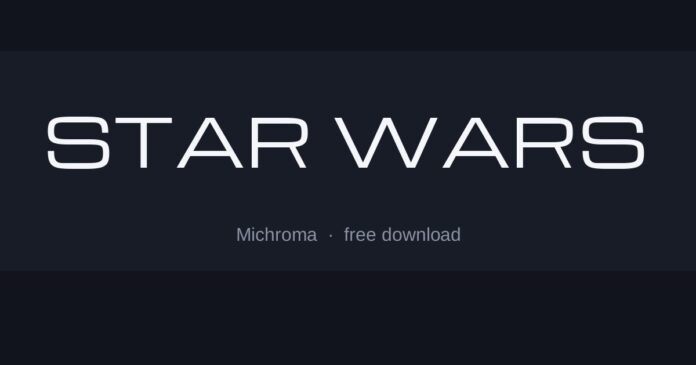
What font is the Star Wars logo?
Custom lettering, drawn by Suzy Rice in 1977 and refined for the film’s titles. It is not a typeface anyone can license — the logo is a single piece of artwork, with the S and the R shaped to lock together.
What can be matched is the underlying idea: a heavy geometric sans, very wide, with flat horizontal terminals and almost no contrast between thick and thin.
- Michroma is the closest in proportion — wide, geometric and even-weighted, with the same squared-off feel across the whole alphabet.
- Mesmerize Ex Bd is the extended bold of a large Eurostile-style family, useful when you want the width without the futurism.
- Goldsaber is heavier and more theatrical, closer to the poster treatment than to the clean title card.
Where the style comes from
The 1977 logo came out of a brief for something bold and slightly fascist-looking, and the answer was a very wide, very heavy geometric — a style that reads as monumental at any size because the letters are built from circles and straight lines rather than drawn strokes.
That geometry is why substitutes get close. The width and the even weight do most of the work; the specific curve of the original S is the part no free font will give you.
Setting it well
- Set it wide and tight — the letters should nearly touch, because the logo reads as one solid block rather than a word
- Yellow on black with a slight perspective taper is more recognisable than the typeface alone
- Avoid adding a stroke or outline; the original is a flat fill and gains nothing from an edge
Is this the exact font used for Star Wars?
Not exactly. The original lettering was custom drawn or is not publicly licensed, so the fonts here are close recreations. Michroma is the nearest match we have found.